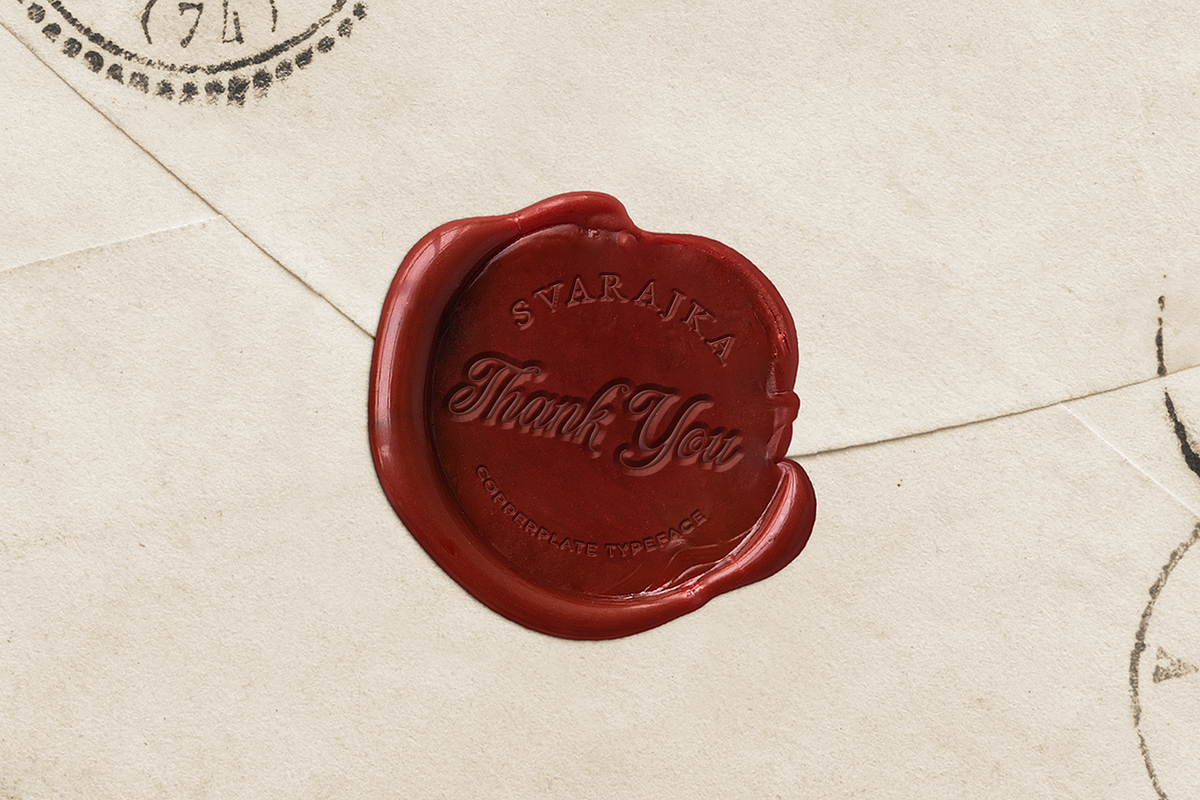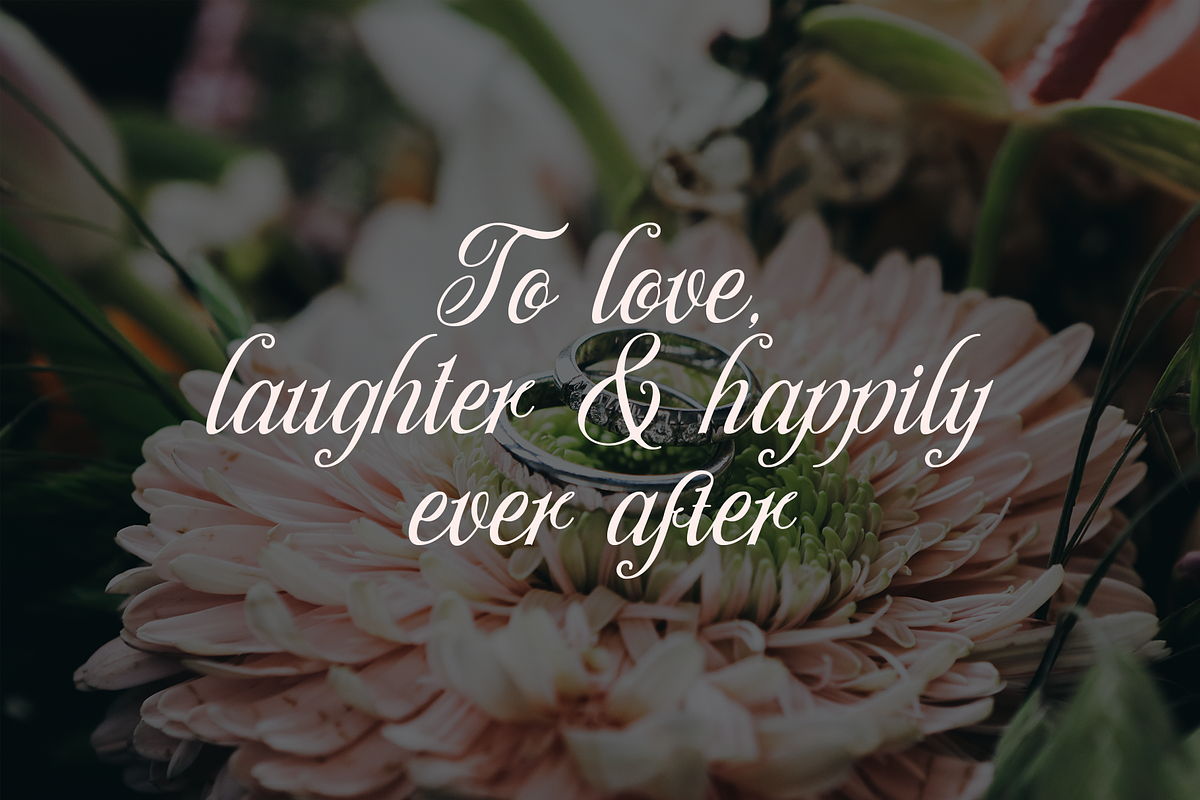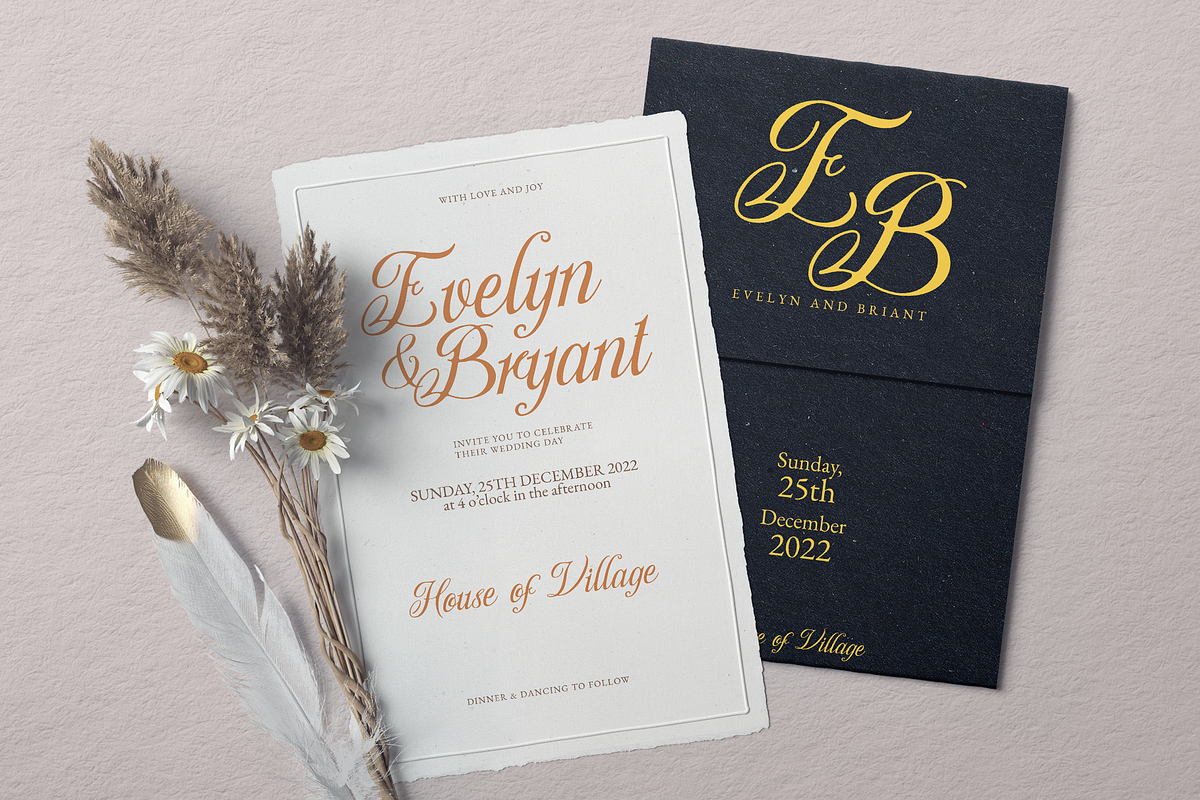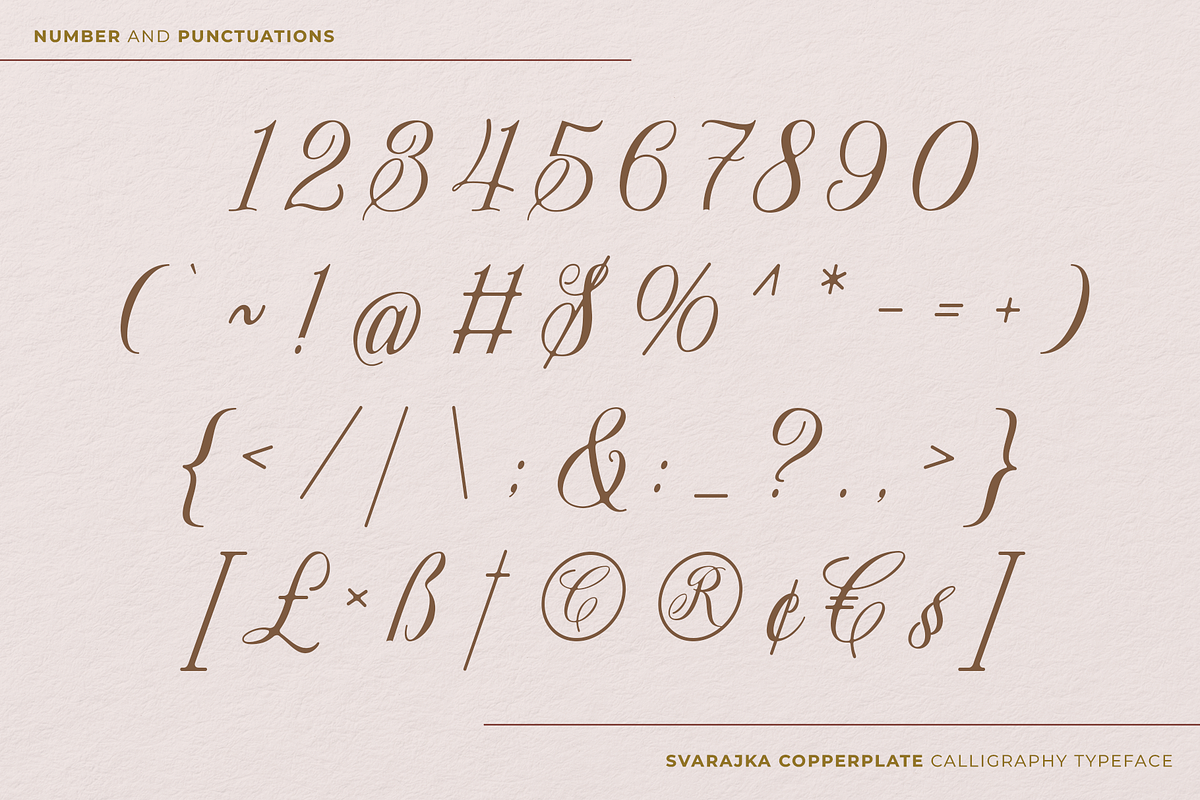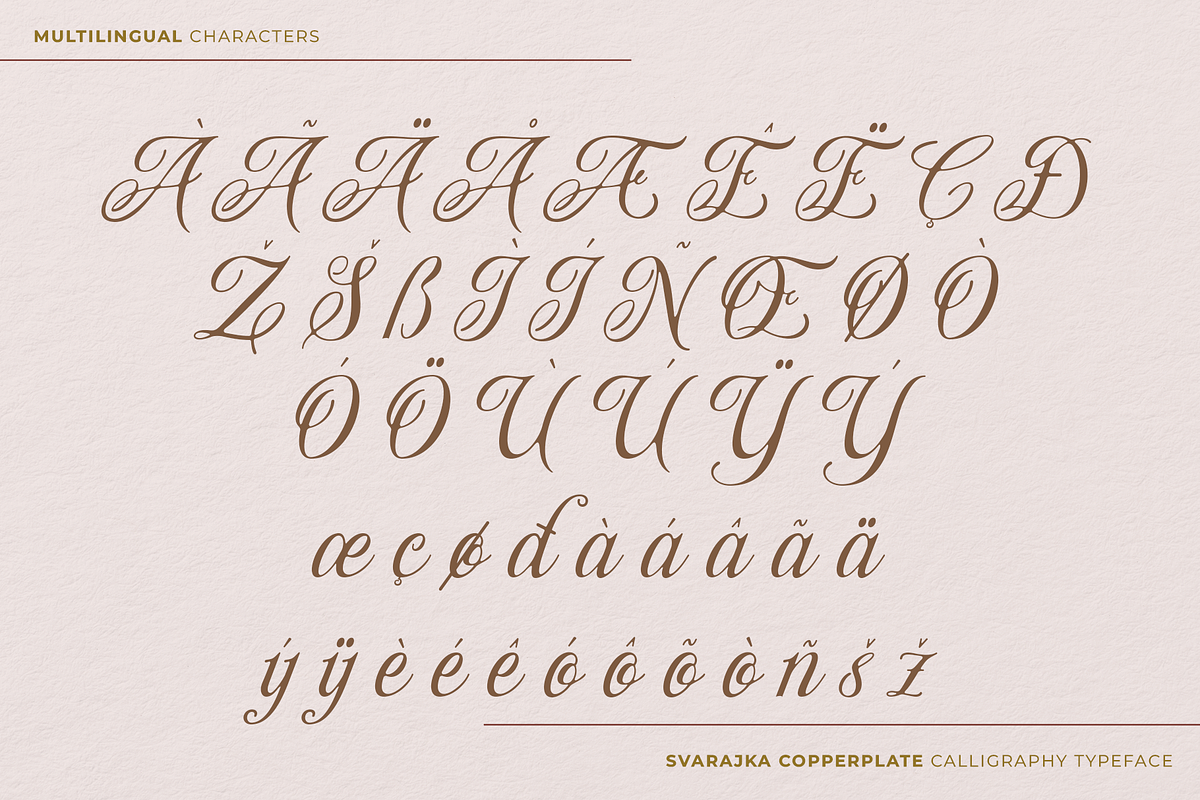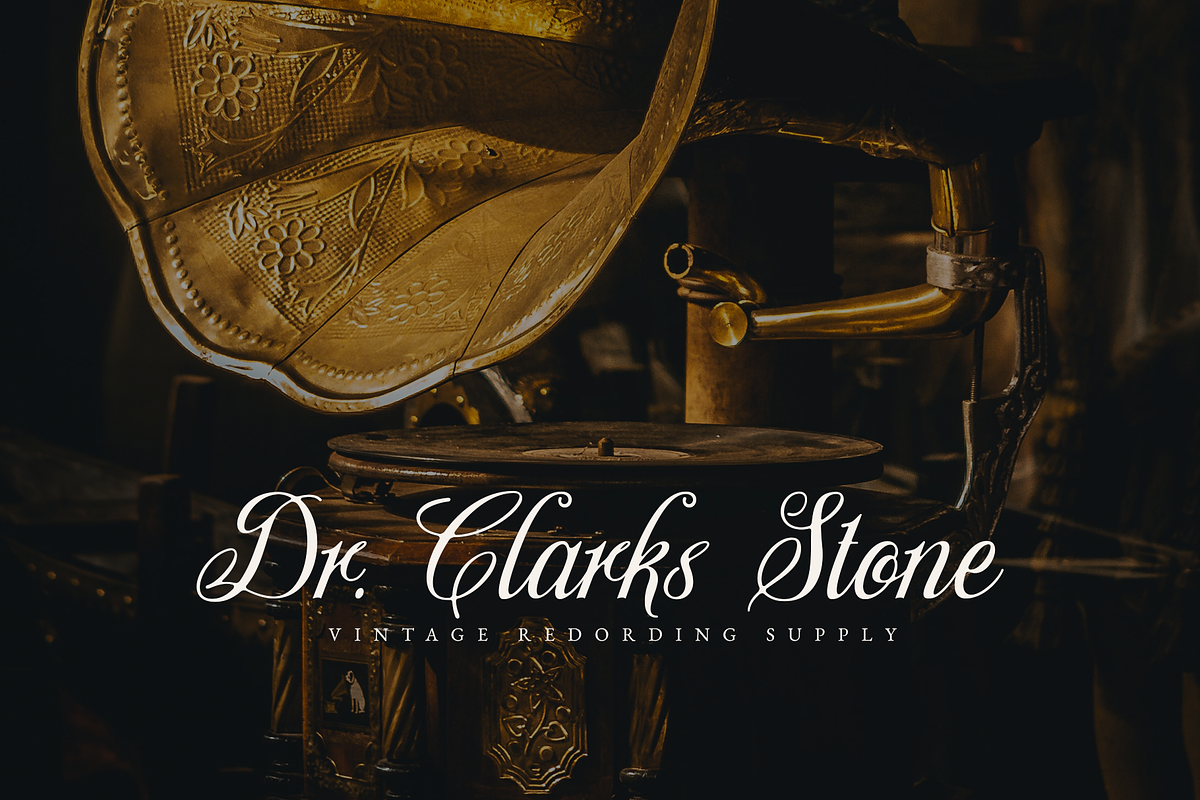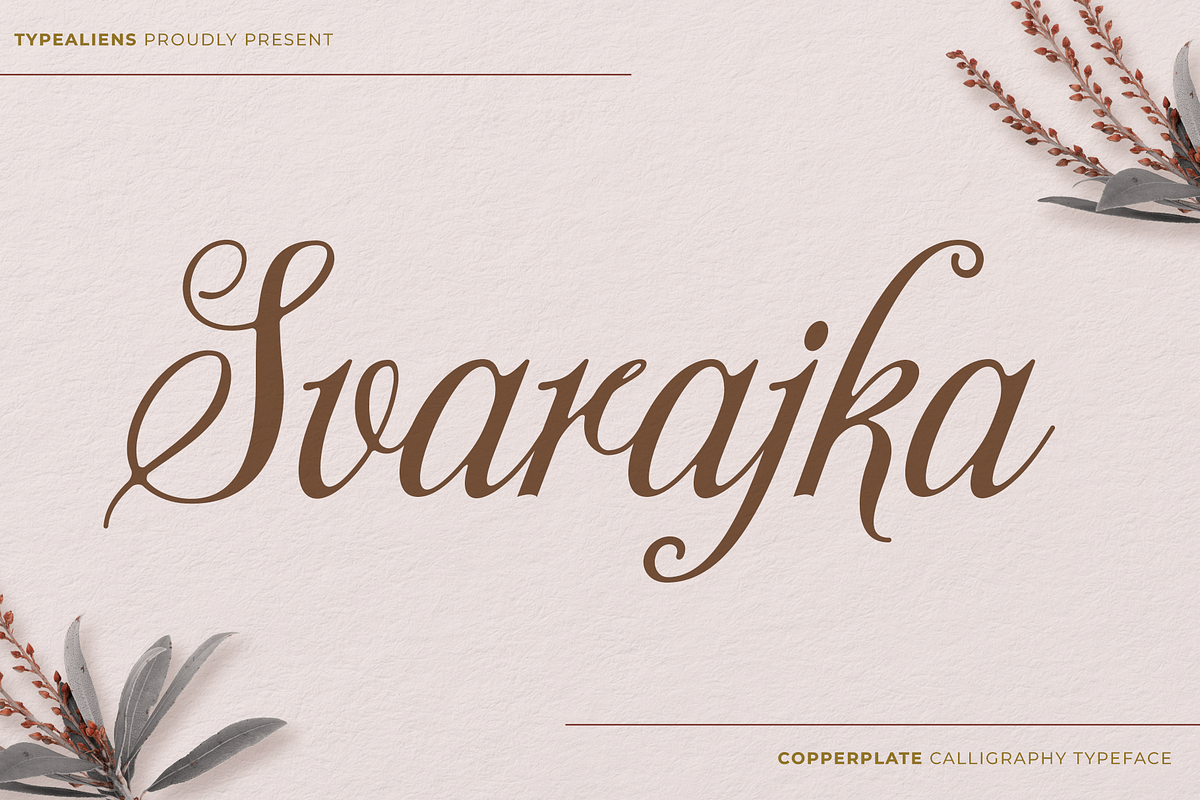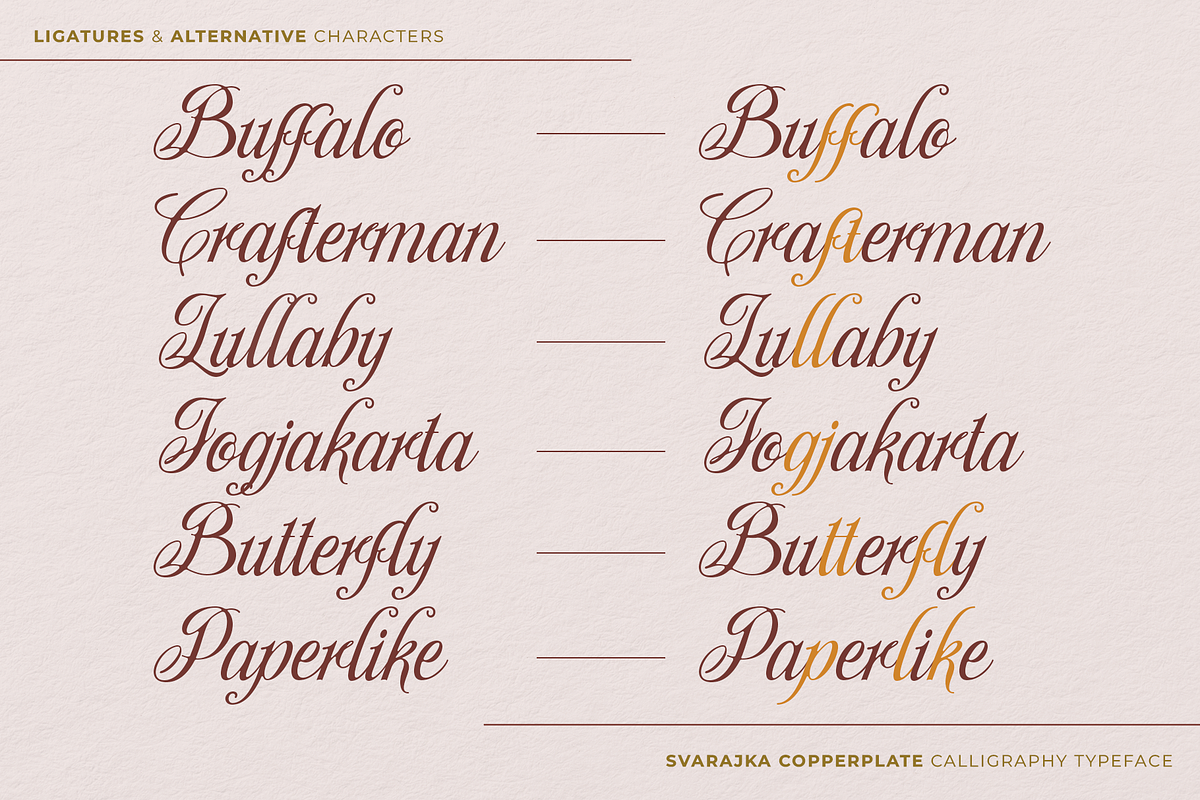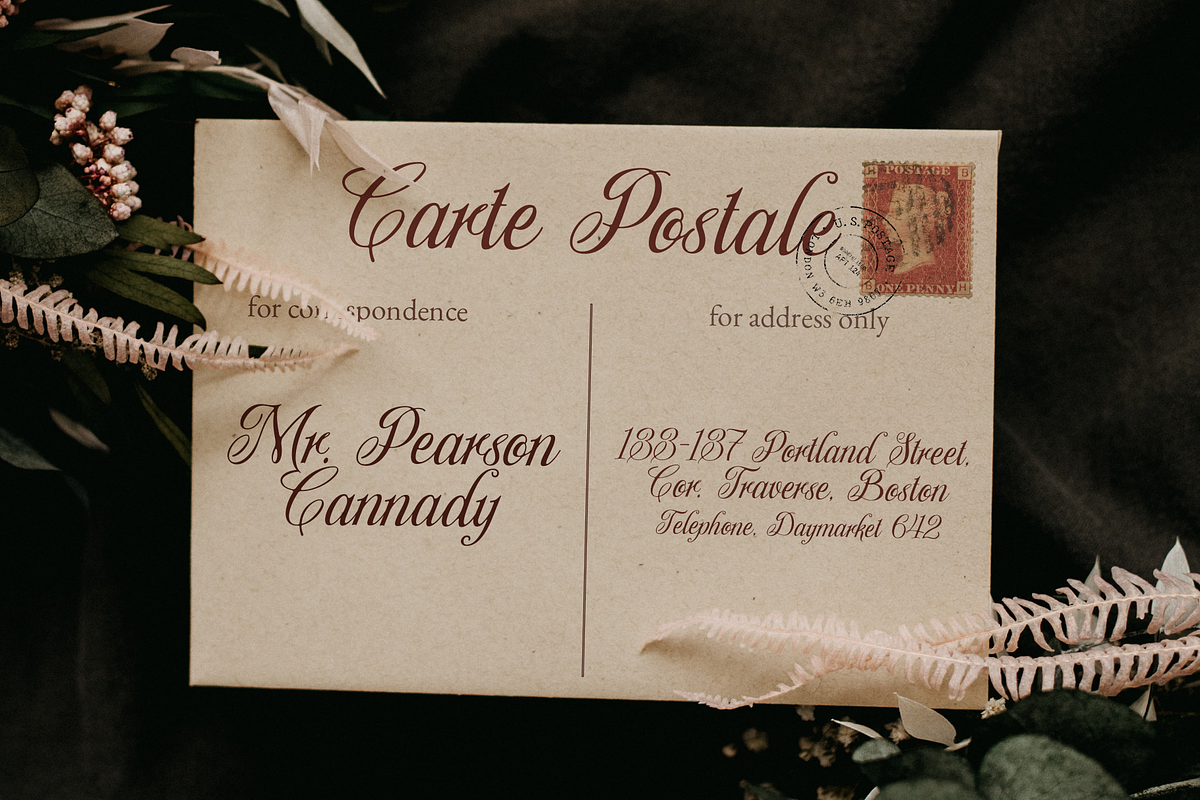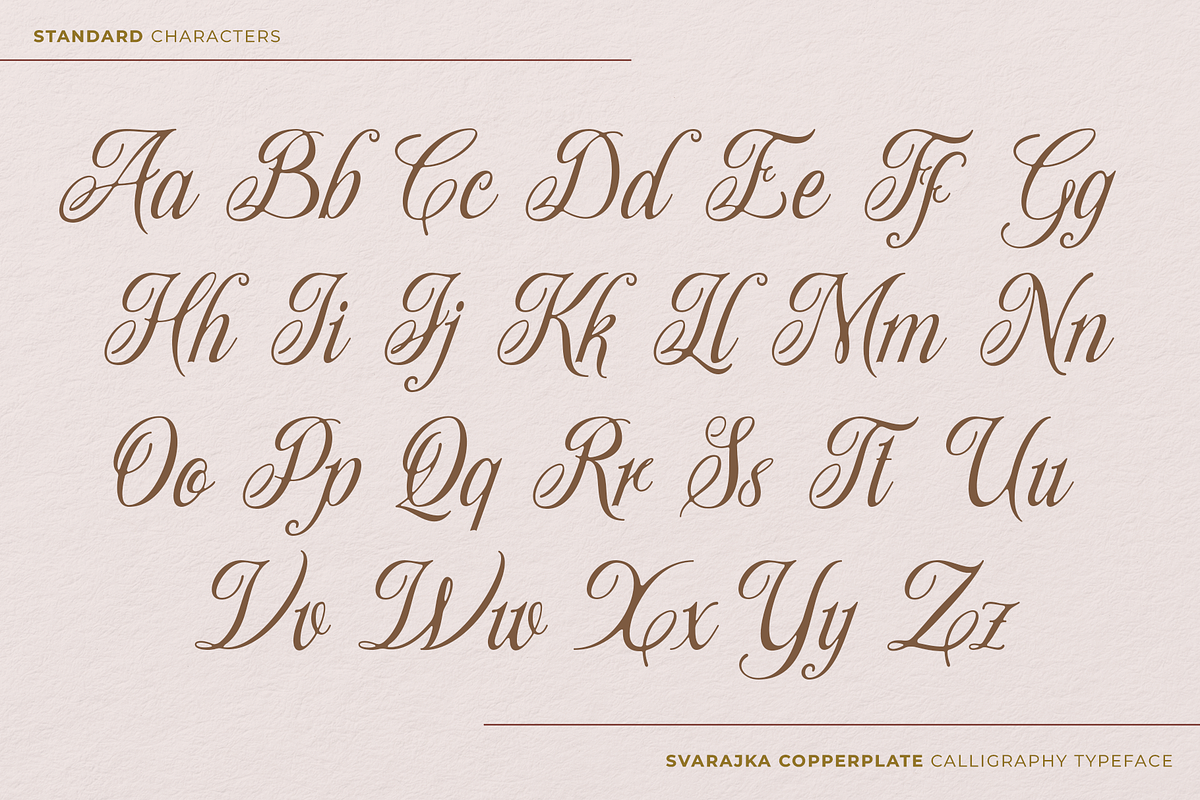
Svarajka
SVARAJKA
Svarajka is a classic script font inspired by the old copper plate font with a slight oversimplification of the case so it's less decorative. In addition to being classic, this font is also elegant, so it does not rule out the possibility for a simple and elegant modern design, and it will also be very beautiful for writing letters or as a font for weddings such as invitations or names of the bride and groom.